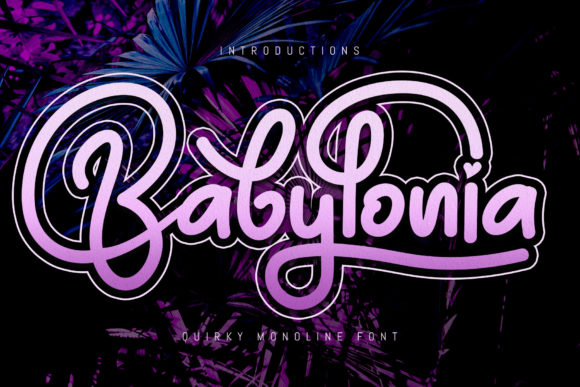
Introducing Babylonia Font, a captivating script font brimming with elegance and charm. Inspired by the timeless beauty of Christmas, this font is a feast for the eyes, adding a touch of wonder to any creative project.
Babylonia's smooth curves and delicate flourishes evoke a sense of enchantment, making it perfect for expressing your heartfelt messages with a unique and personal touch. Its graceful strokes are reminiscent of swirling snowflakes, capturing the magic of the winter season.
Imagine the delight of your customers as they discover the endless possibilities of Babylonia. It's ideal for fashion branding, adding a touch of sophistication to clothing labels, logos, and social media graphics. Unleash your creativity and let Babylonia elevate your editorial designs, transforming ordinary text into breathtaking works of art.
The possibilities are endless with Babylonia. Its versatility extends to wedding invitations, greeting cards, and personalized gifts, adding a touch of warmth and charm to life's special moments. Embrace the beauty of Babylonia and let your imagination run wild.
With Babylonia, your creative projects will radiate an aura of elegance and joy. It's the perfect font for expressing heartfelt emotions, inviting readers into a world of enchantment. Experience the magic of Babylonia today and let your words dance with grace and beauty.